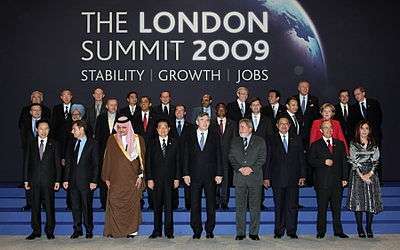
Bliss (typeface)
Bliss on the University of Worcester logo.
Bliss on the London G20 summit logo.
Bliss is a sans-serif typeface family designed by Jeremy Tankard.[1][2][3][4]
Bliss is a design in the British humanist style, based on the Johnston typeface of London Underground as well as Gill Sans and Syntax, but with a more uniform style with greater evenness and similarity between weights.[5][6][7][8] Describing it, Tankard wrote that "forms were chosen for their simplicity, legibility, and ‘Englishness’, and that his goal was to create "the first commercial typeface with an English feel since Gill Sans."[9][10]
As of 2016, Bliss is used as a corporate font by the universities of Worcester and Bath Spa, United World Colleges, the Arts and Humanities Research Council and the HADOPI institute, and by Edexcel.[11][12][13][14][15][16]